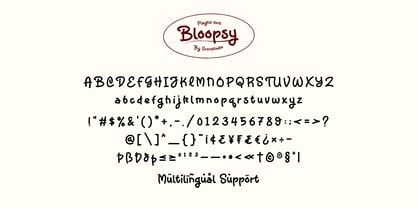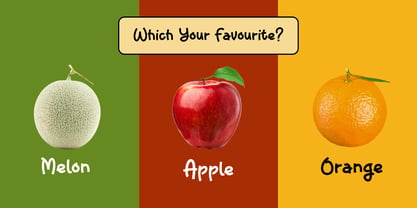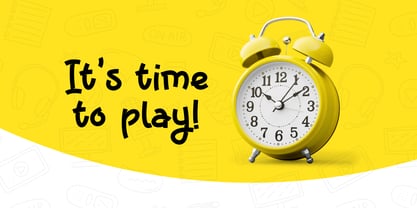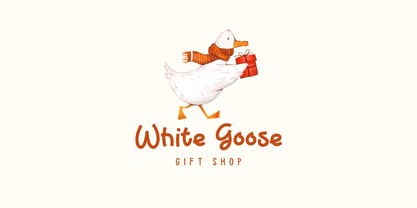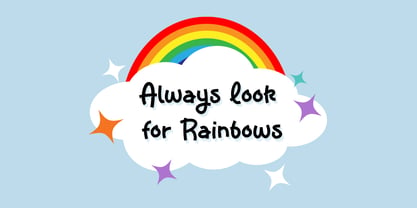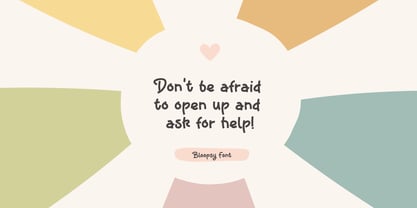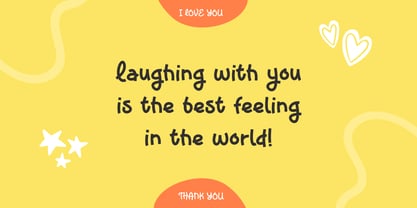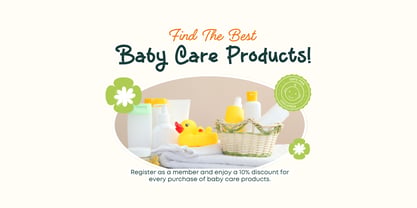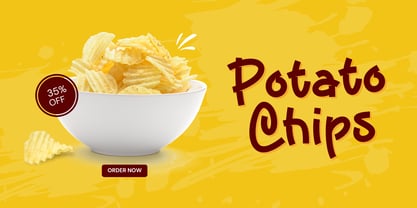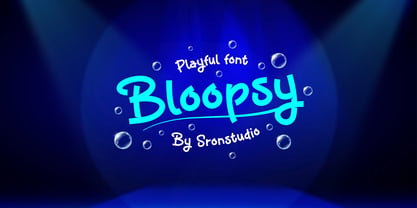
Bloopsy
by Sronstudio
The Bloopsy Font Family was designed by Muhamad Yusron Billah and published by Sronstudio. Bloopsy contains 1 styles. More about this family
Bloopsy is a fun and playful font full of bubbly personality and cheerful charm! With its unique shapes and quirky style, Bloopsy is perfect for kids’ projects, cartoons, product packaging, posters, and anything that needs a touch of joy and creativity. Whether you're designing for birthdays, toys, or happy branding, Bloopsy adds a delightful, lighthearted feel to your work.
Designers: Muhamad Yusron Billah
Foundry: Sronstudio